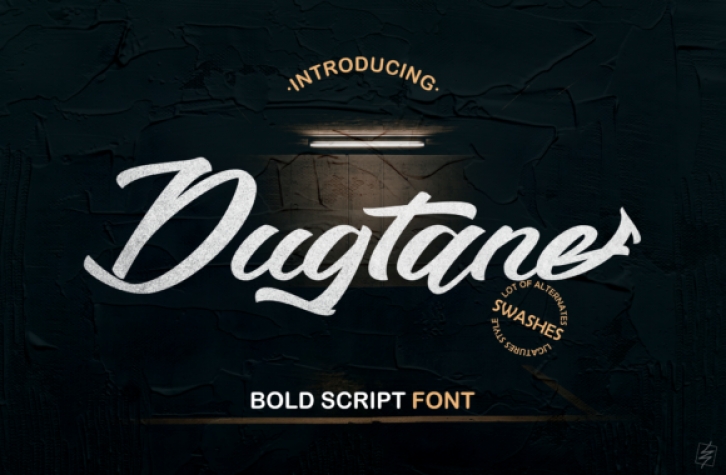
Dugtane is a bold handwritten font with a natural feel. It will elevate a wide range of design projects to the highest level, be it branding, headings, wedding designs, invitations, signatures, logos, labels, and much more!